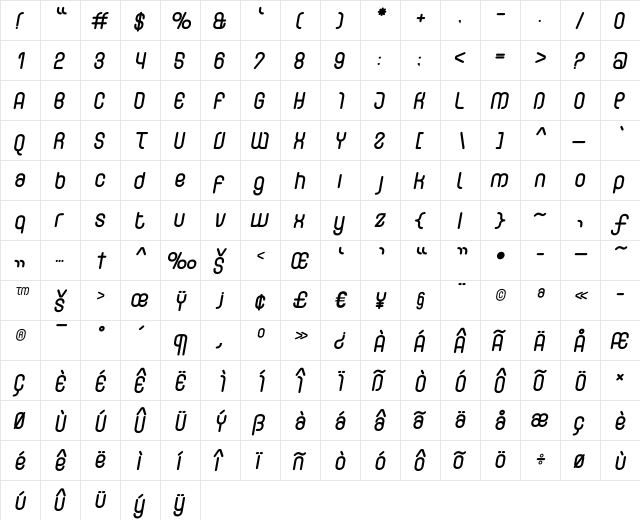
Curvature-RoundedItalic Regular Font Preview
Design Context for Curvature-RoundedItalic Typeface
Curvature-RoundedItalic softens its letterforms with rounded terminals, giving it an approachable, friendly quality that works well in consumer-facing and digital contexts. The slanted form adds forward momentum and visual energy.
Well-suited to UI design, mobile interfaces, and any brand that wants approachability without sacrificing clarity.
Font Pairing: Pairs well with a rounded or humanist sans for body copy, maintaining the friendly tone without relying on Curvature-RoundedItalic to carry extended reading.
Pro Tip: Use Curvature-RoundedItalic for UI elements, app interfaces, and anywhere a friendly, approachable tone needs to be maintained without sacrificing clarity.